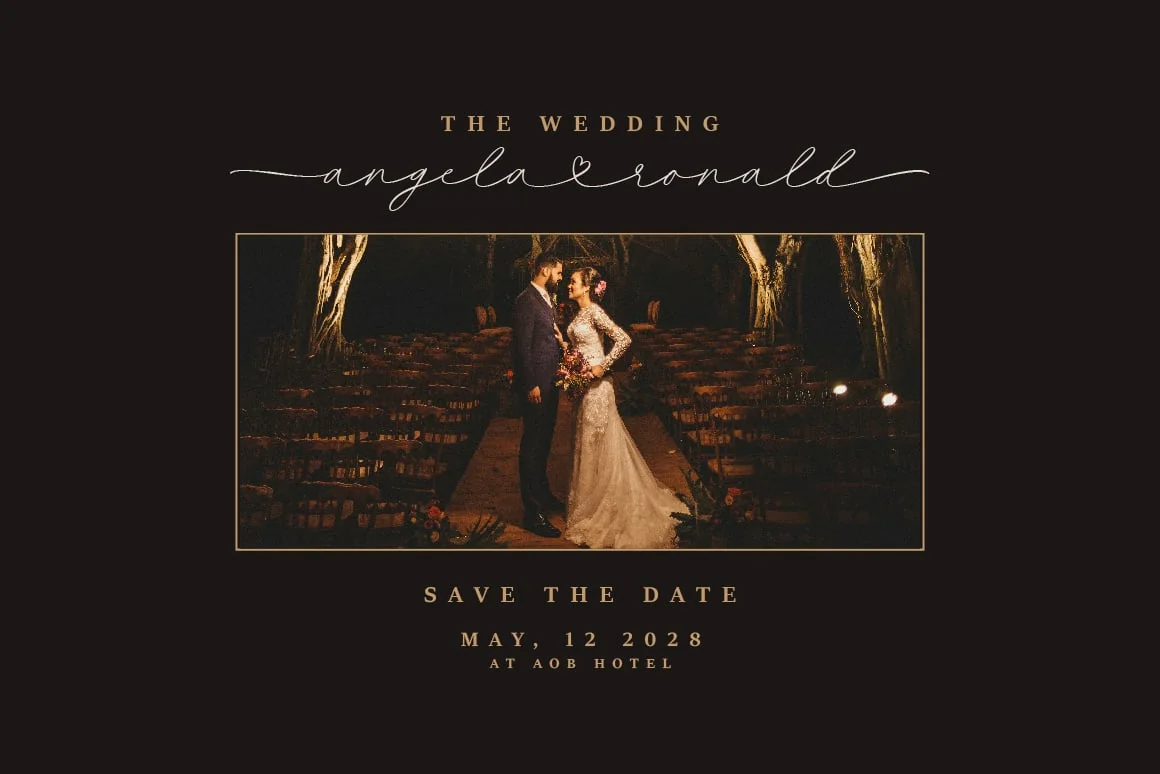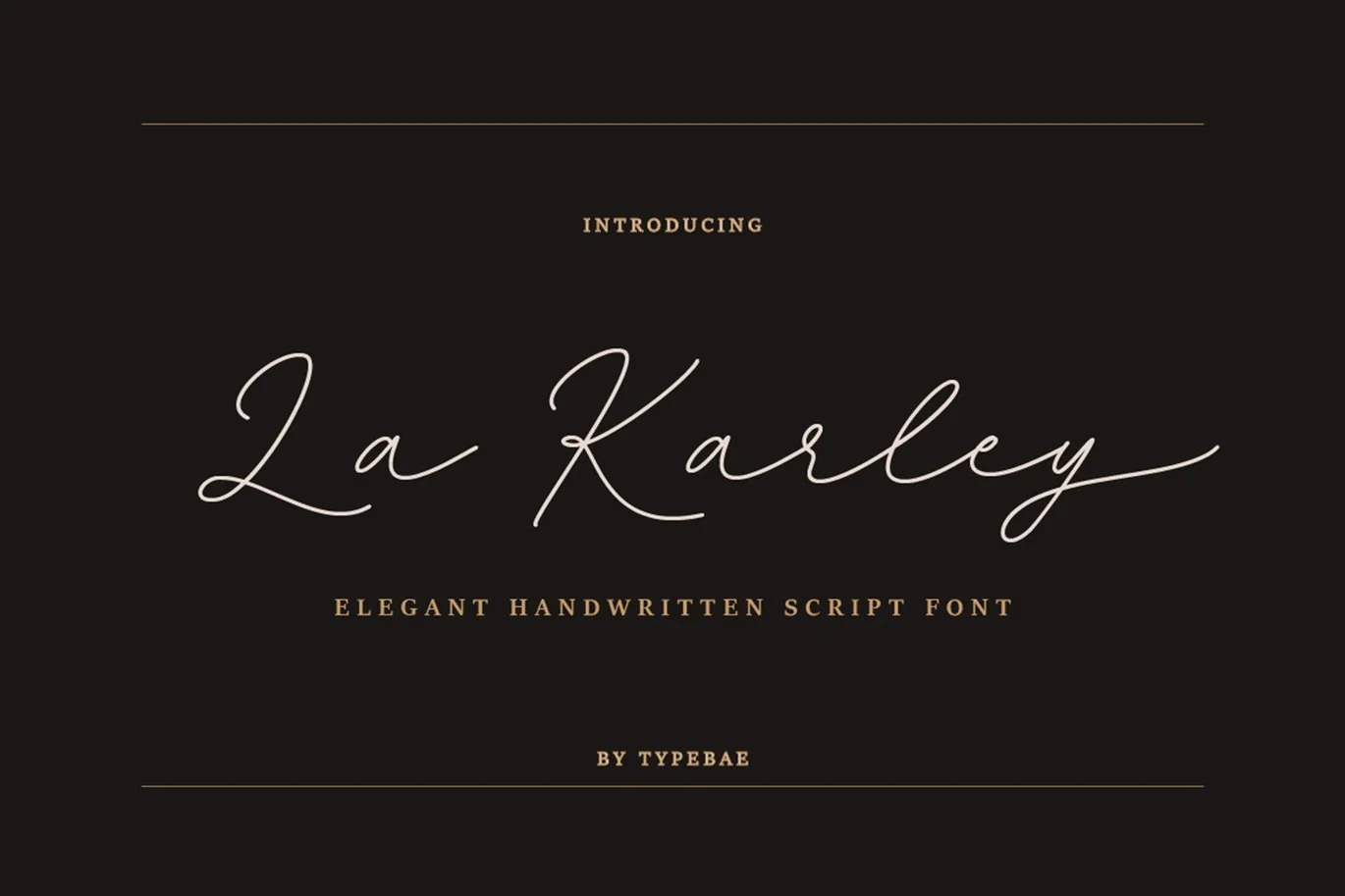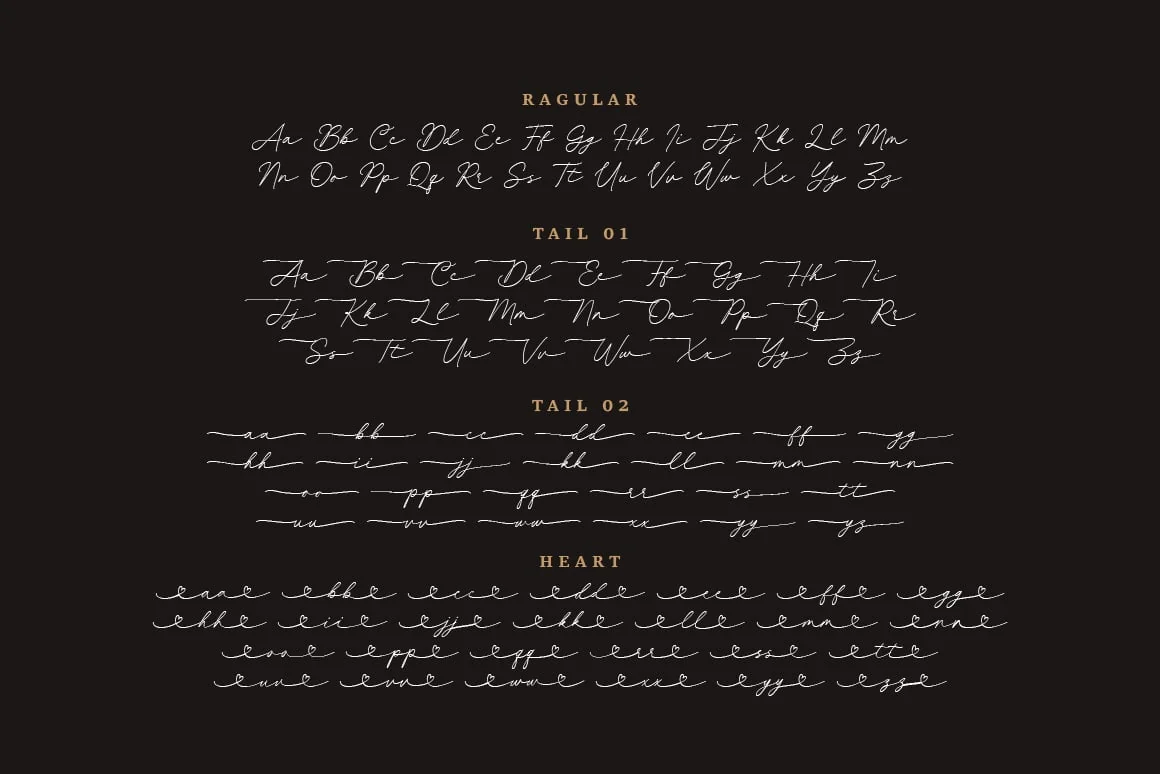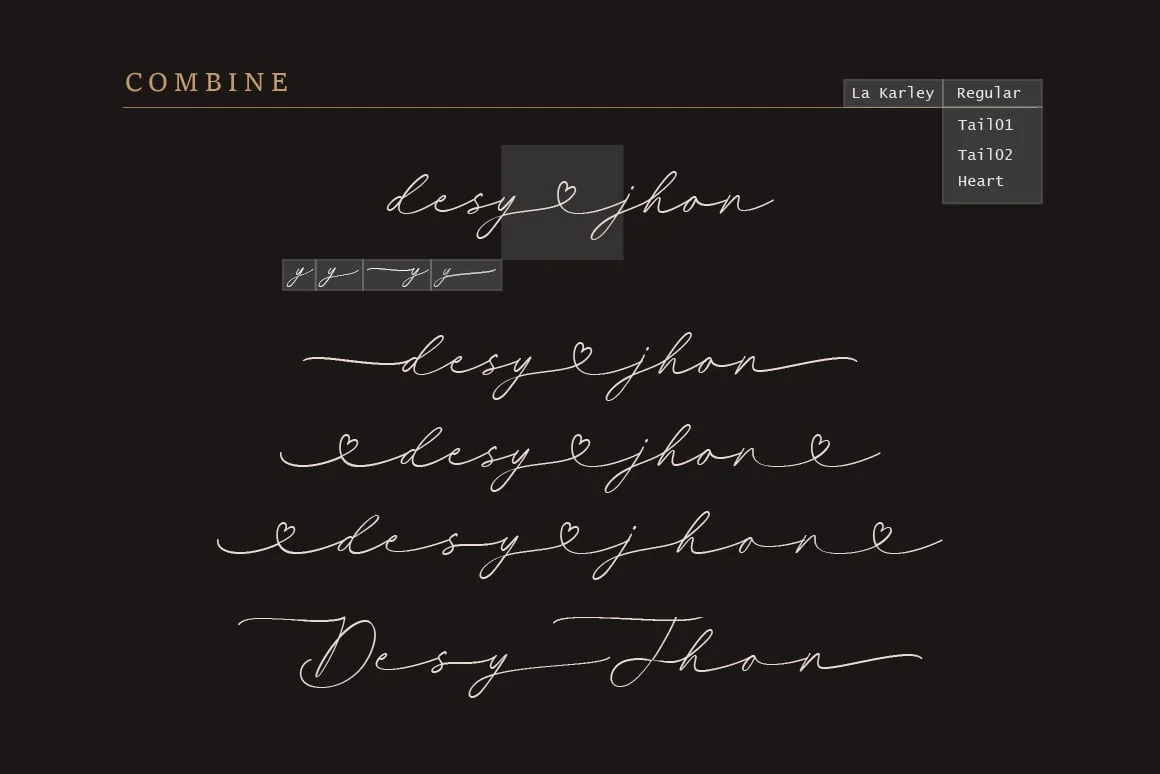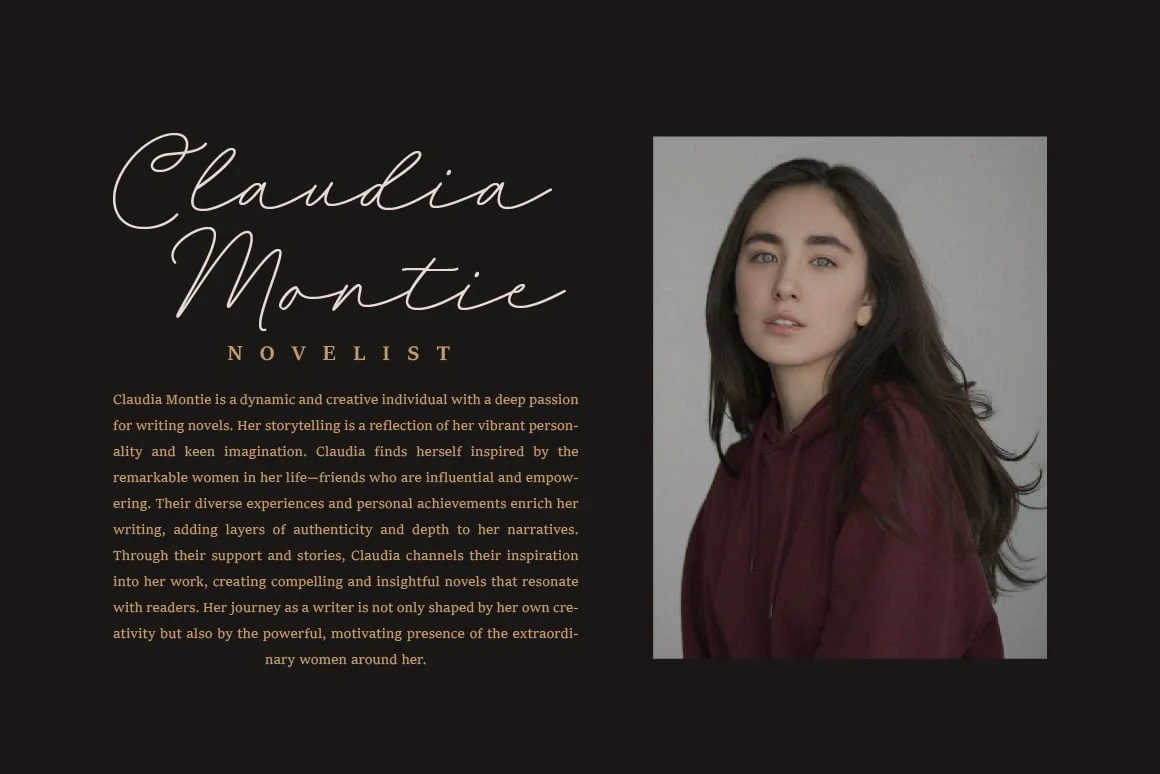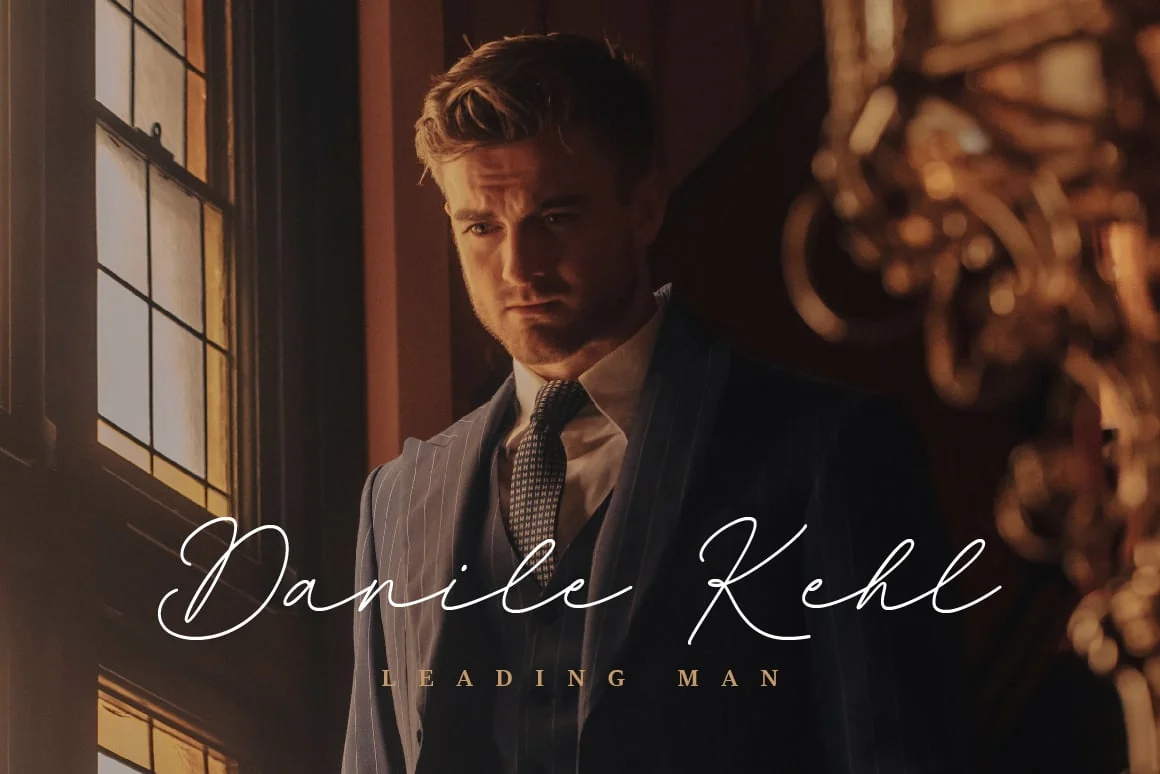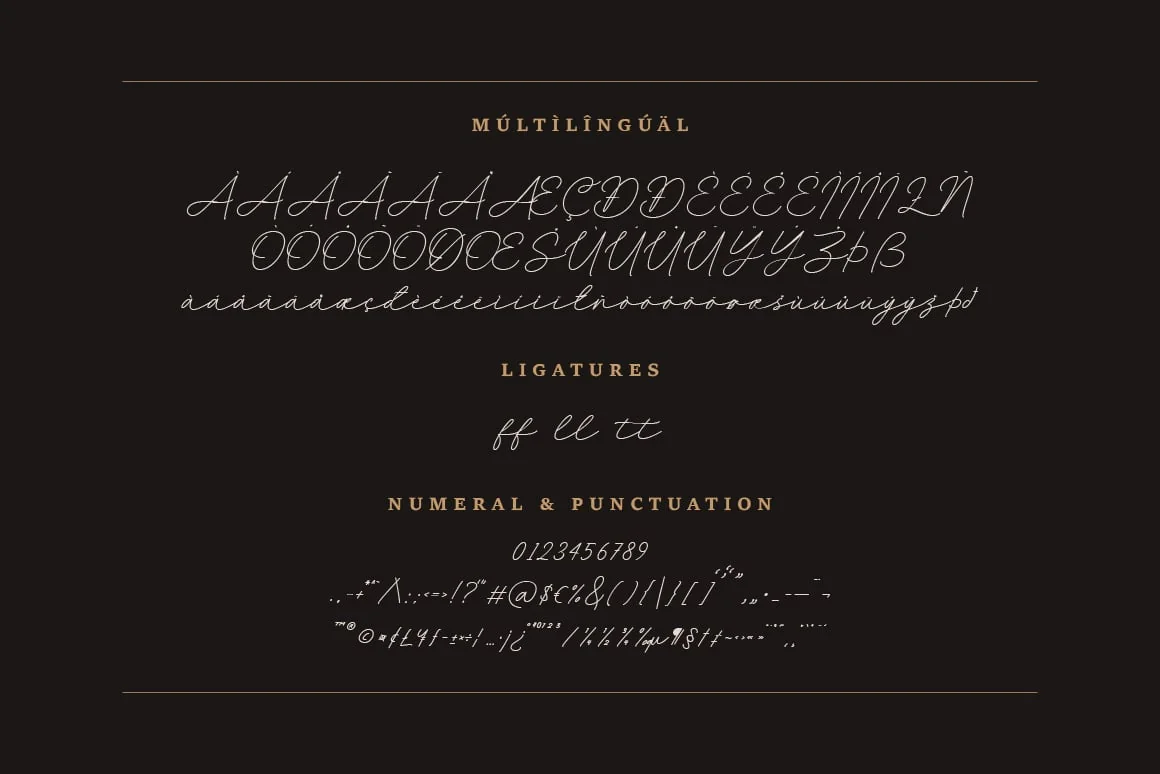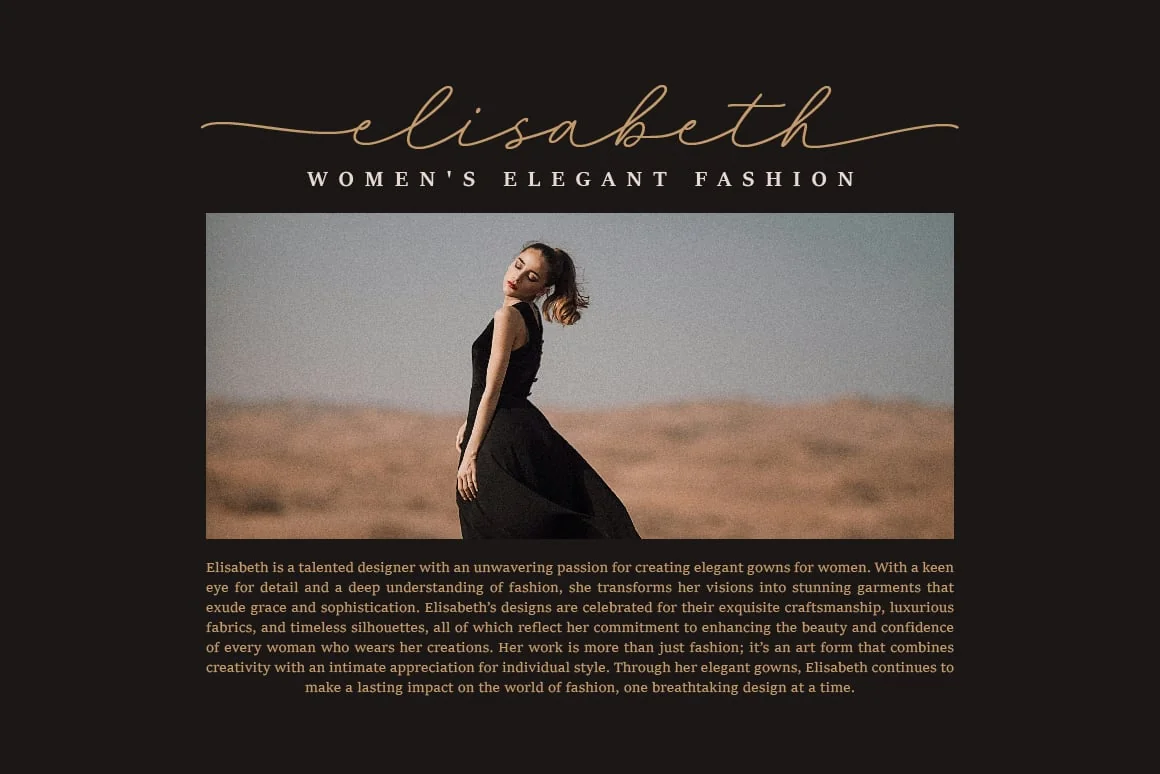
La Karley – Elegant Handwritten Script Font
La Karley is a beautiful and natural handwritten script font that exudes elegance. This font features captivating letter alternates and charming tails at the beginning and end of each stroke. The font’s distinctive attribute lies in its heart-shaped connecting tails, adding a touch of romance and charm. With its graceful design, La Karley is sure to captivate and inspire.
To use the alternates, heart connectors, and beginning and ending tails, you don’t need software that supports OpenType, as we’ve made them separately, making it very easy to use.
Feature: Ligature, Multilingual and PUA encoded.